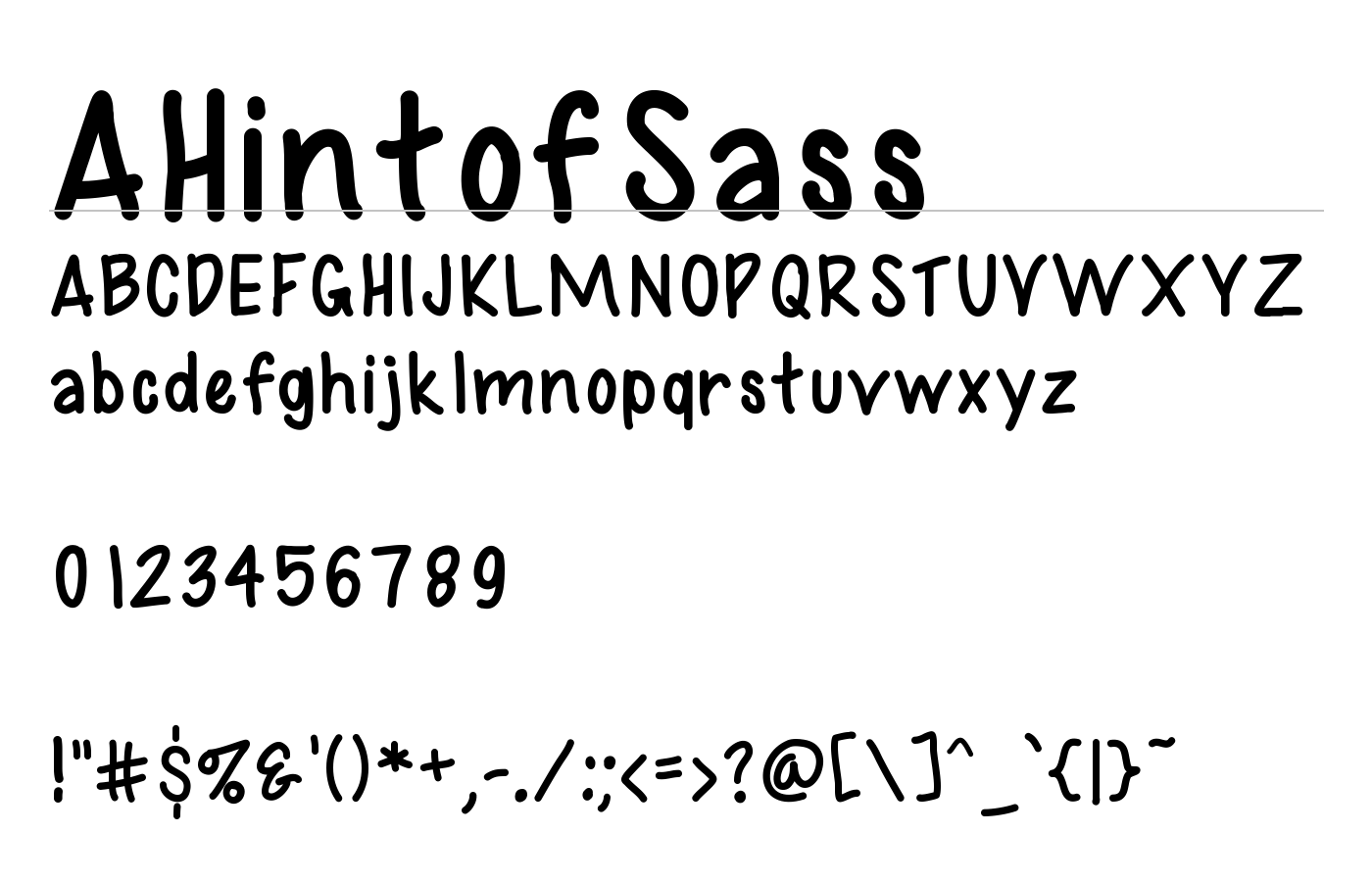
AHintofSass is a playful, casual handwritten sans serif font with a friendly and approachable feel. Its irregular, rounded strokes and moderate x-height create an informal yet clear style, perfect for adding personality to invitations, children's materials, or lifestyle branding. This font works well in headlines and short texts where a warm, personal touch is desired.
AHintofSass Font
About AHintofSass Font